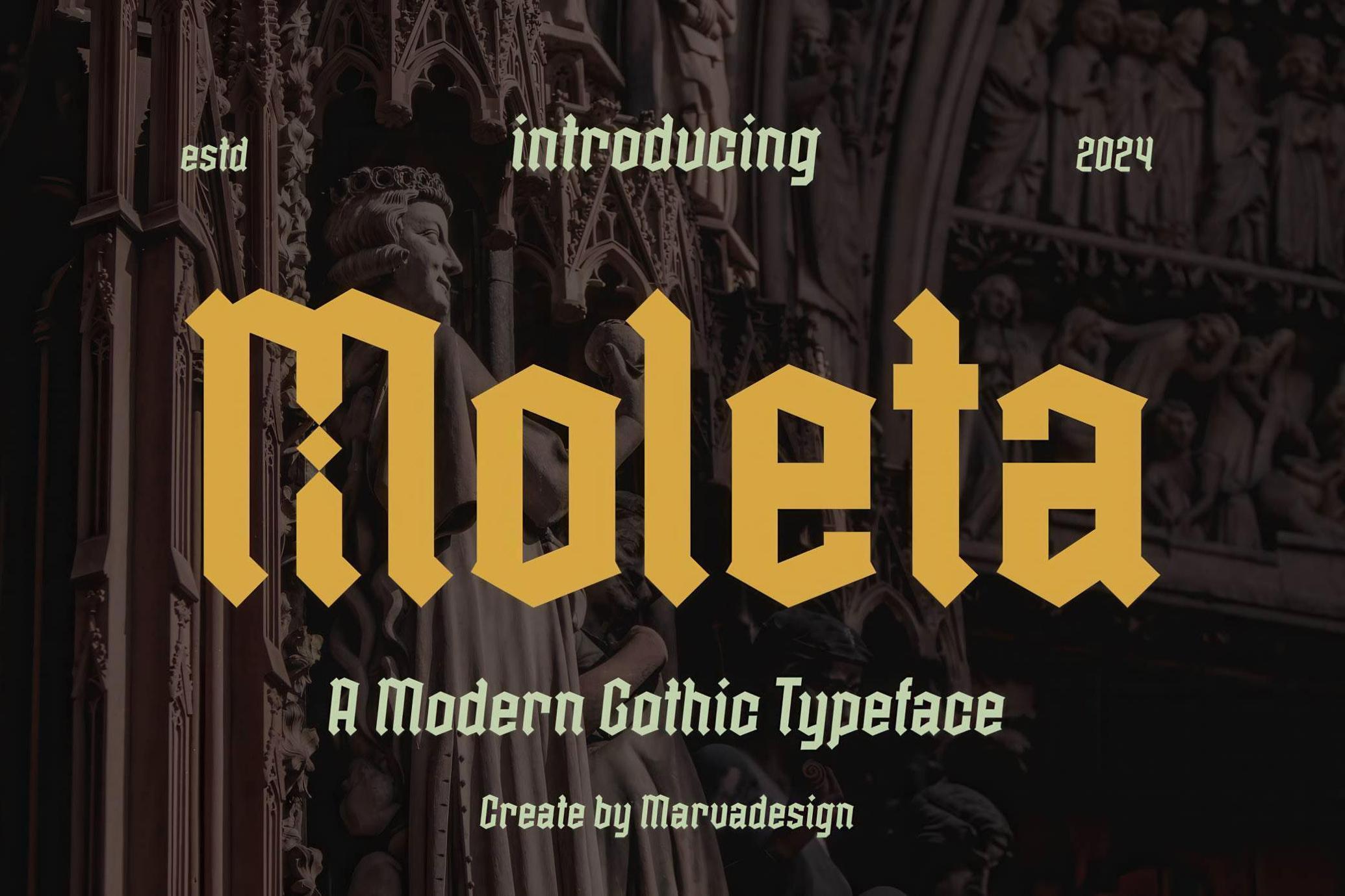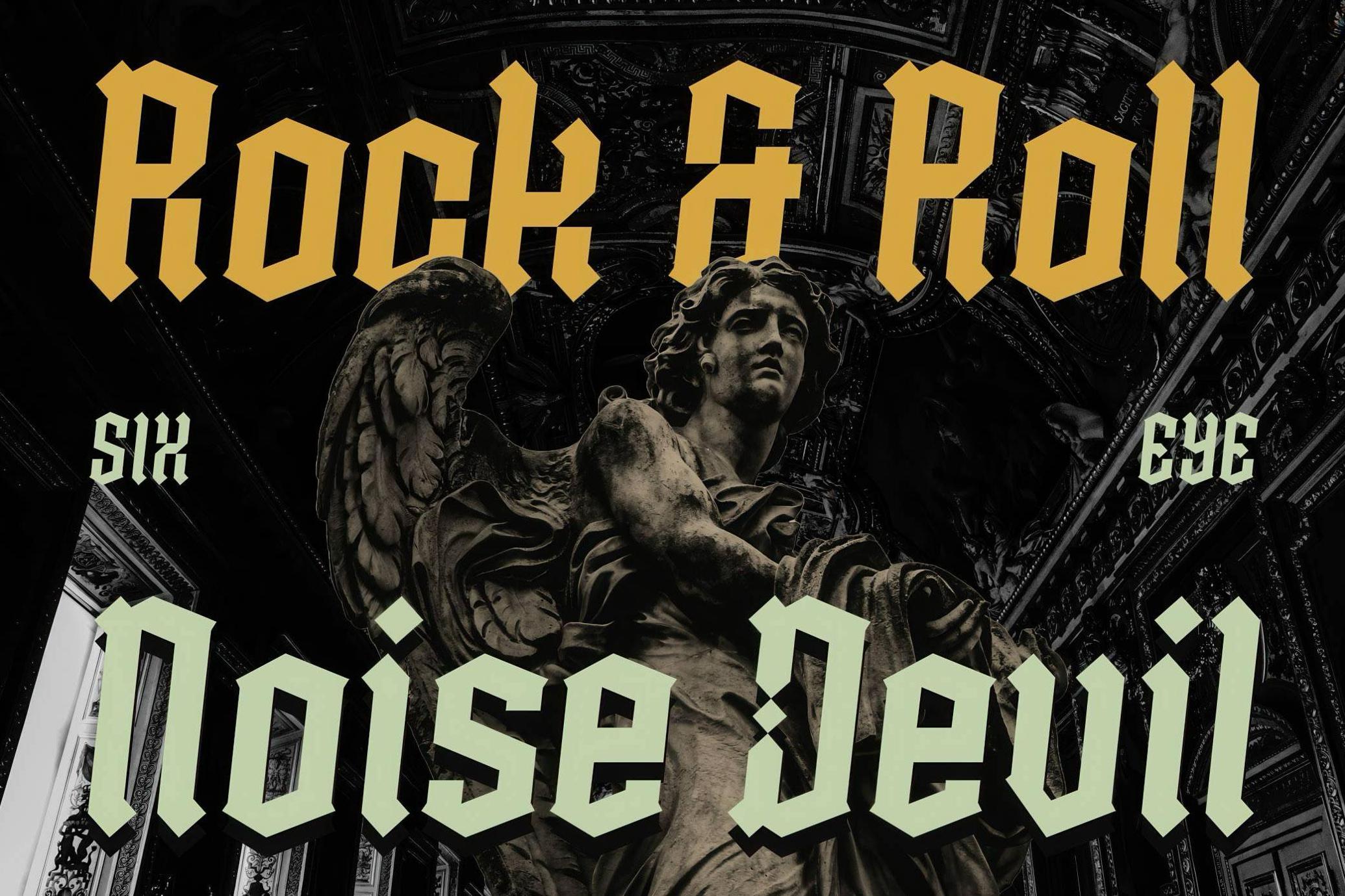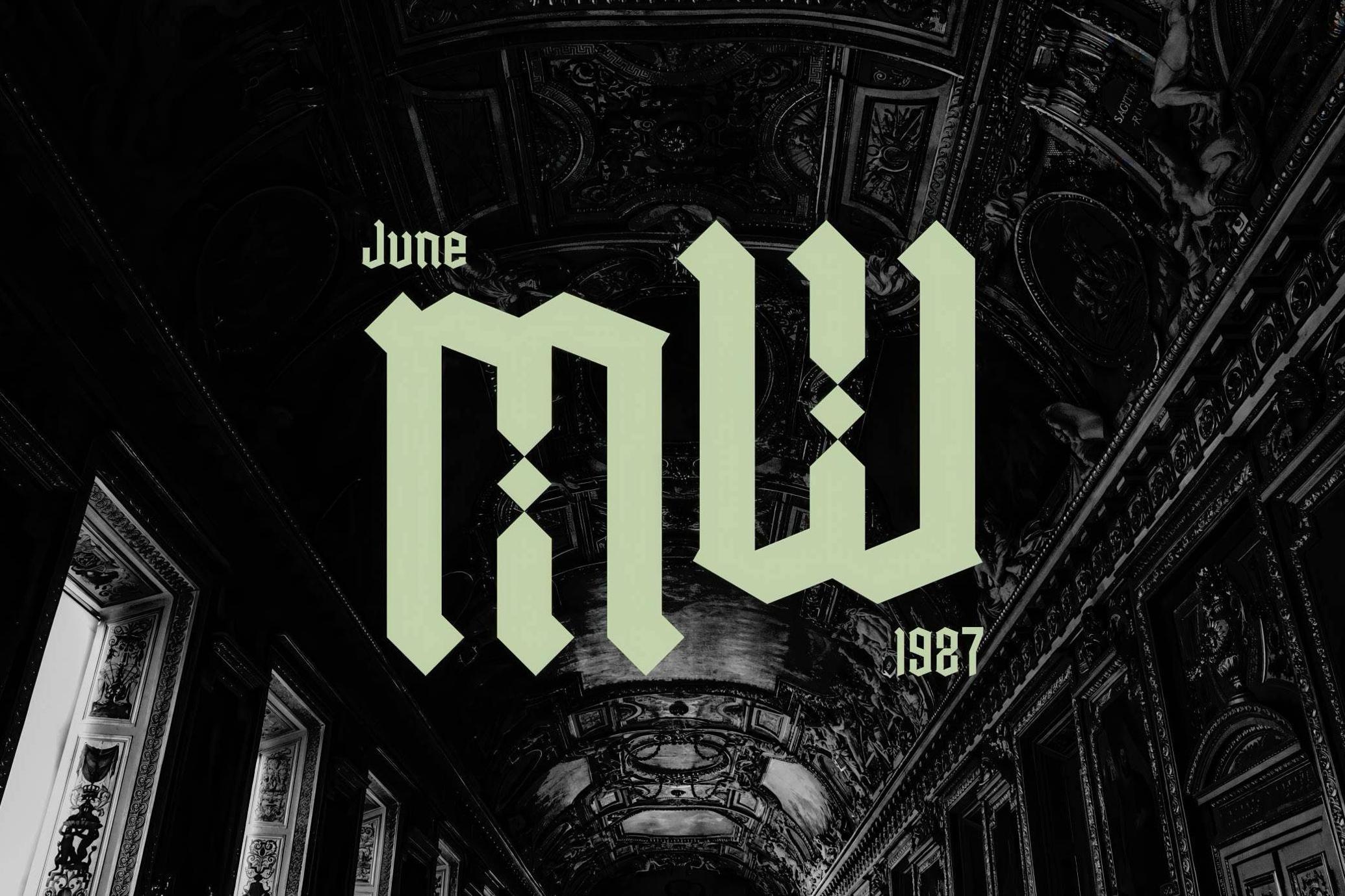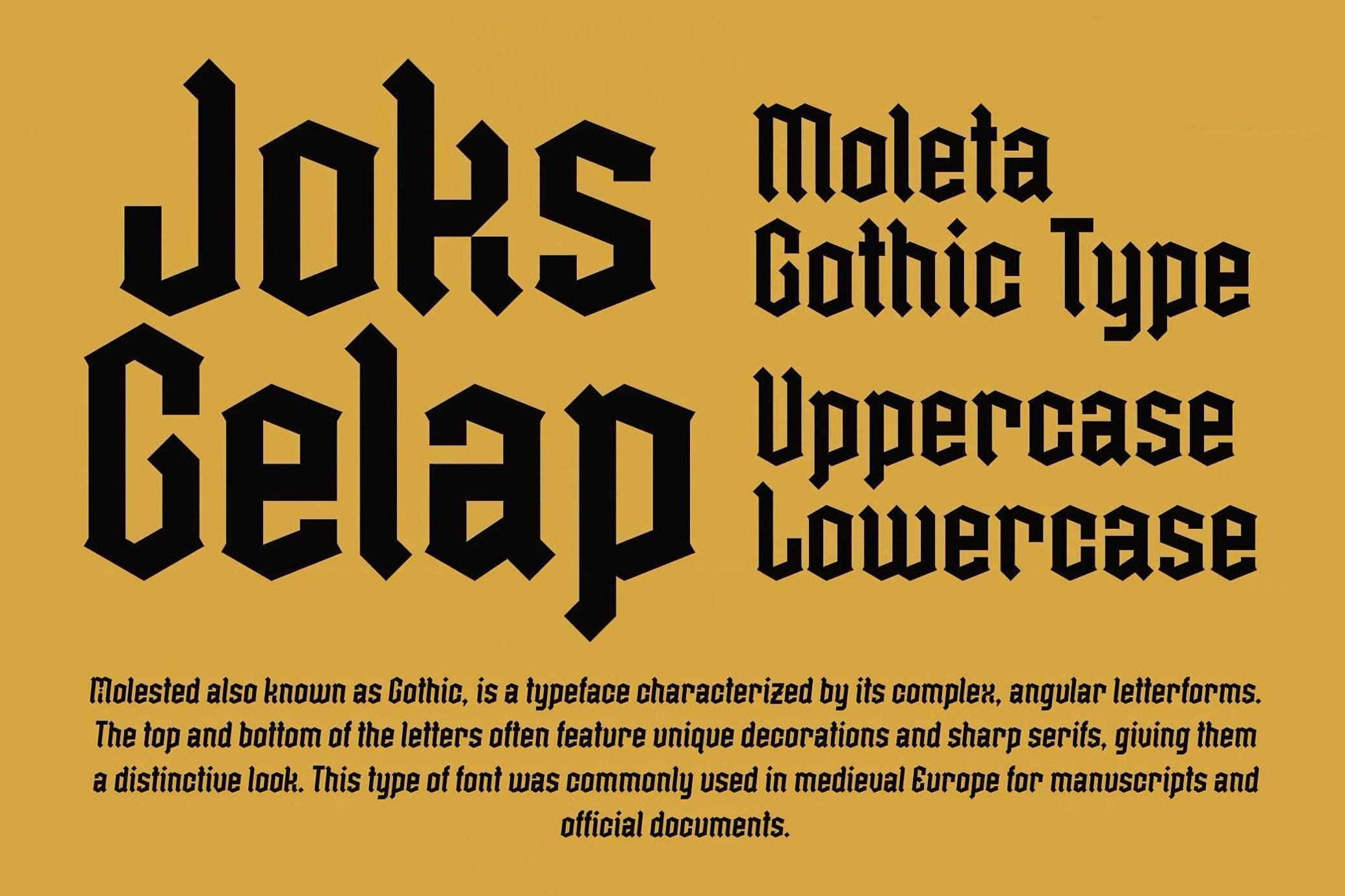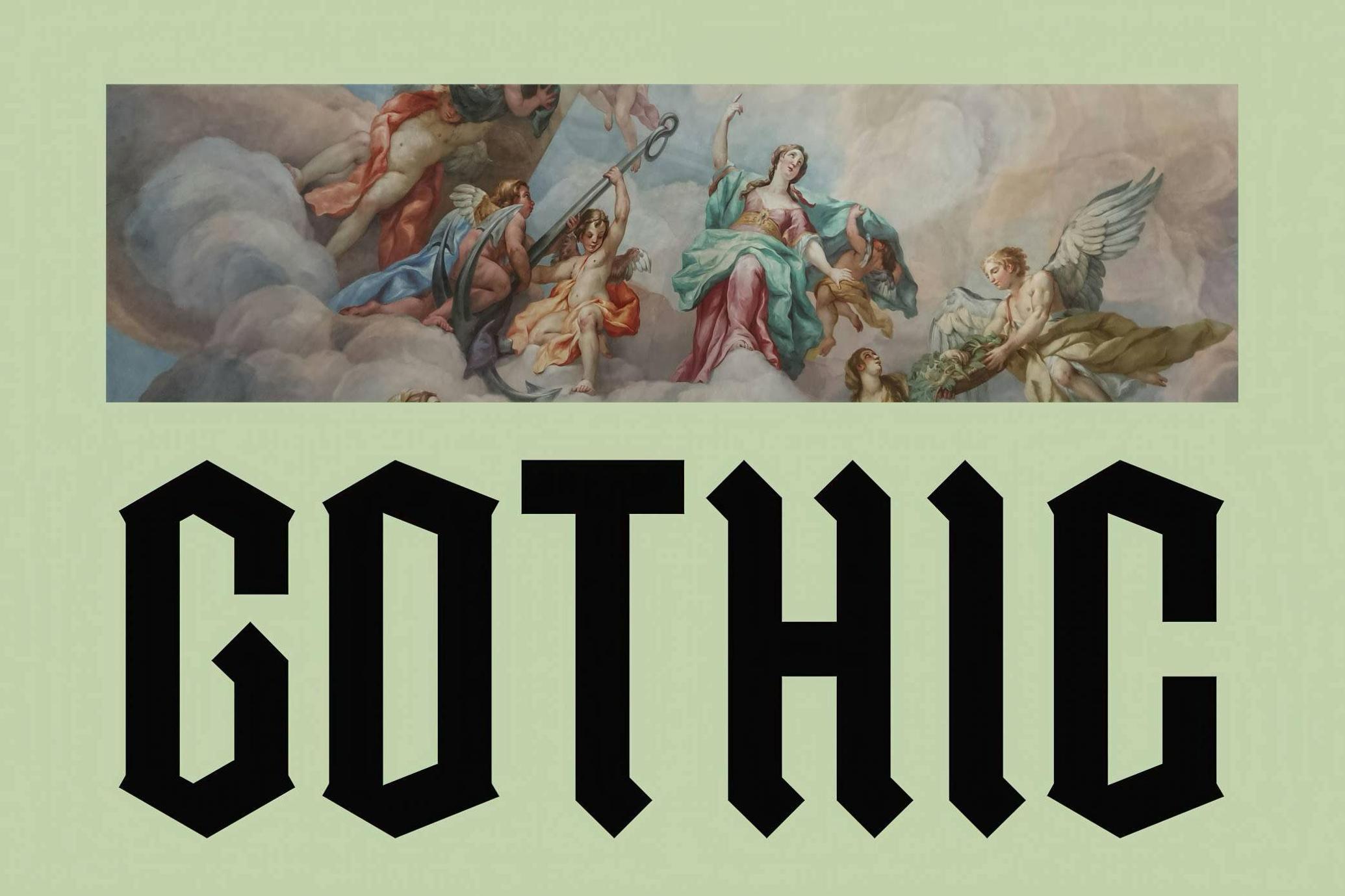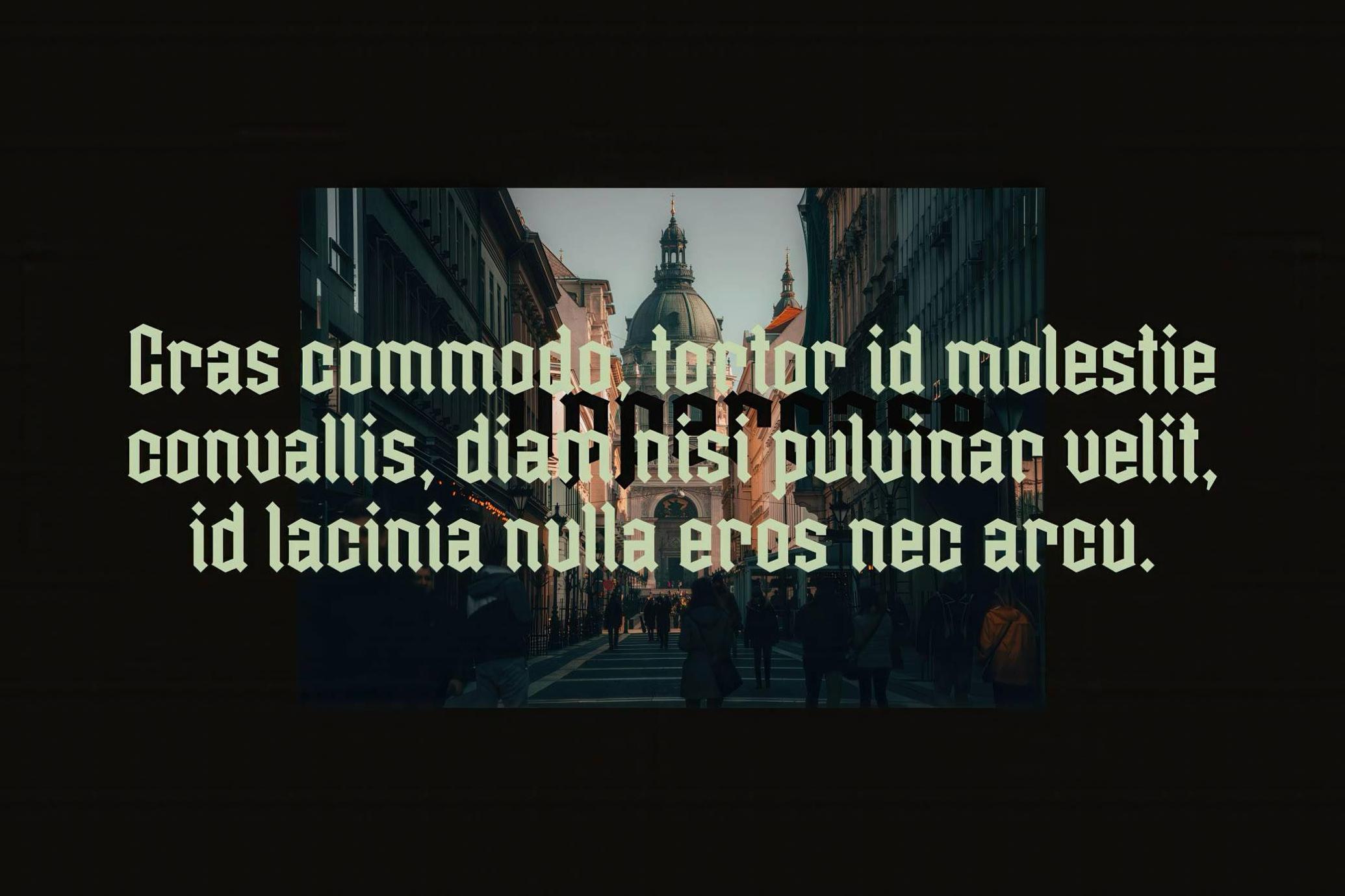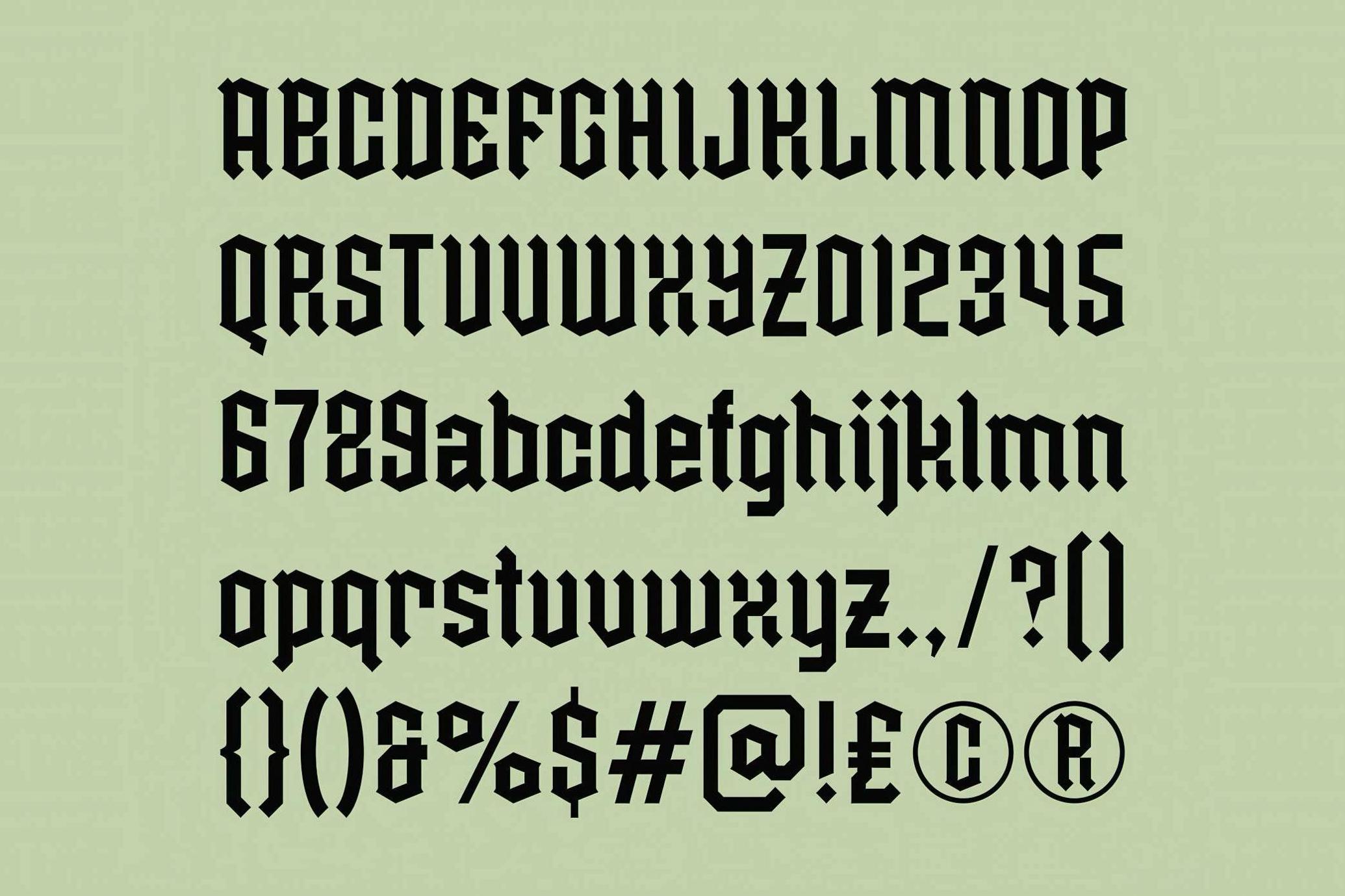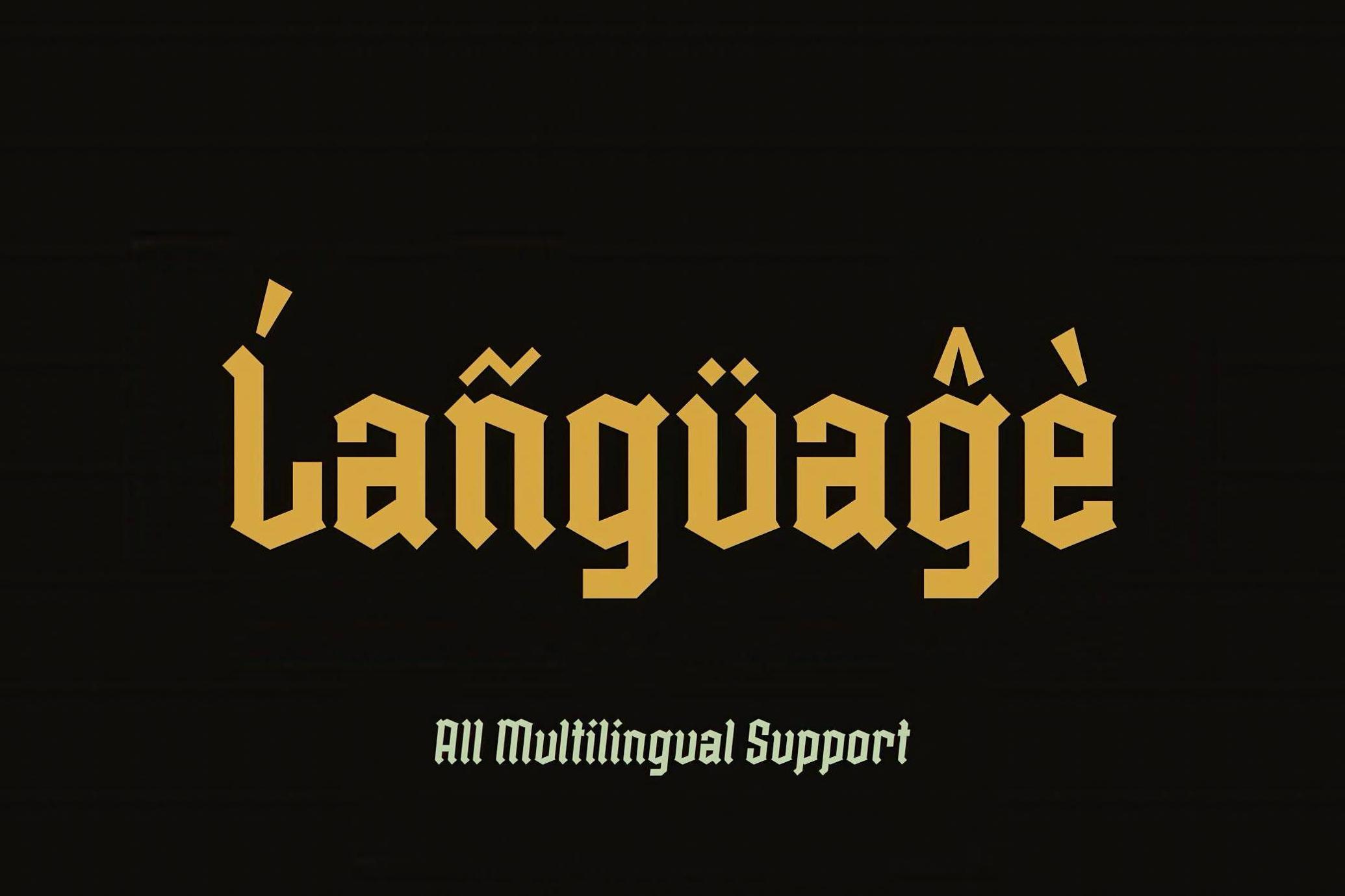
Moleta — Modern Gothic Typeface
Moleta
With all the drama of a cathedral shadow and the bite of a blackletter blade, Moleta revives the Gothic tradition with a bold, contemporary edge. Its angular strokes, ornate caps, and dagger-sharp terminals feel straight out of medieval manuscripts — but wielded with modern intent. This typeface straddles centuries, making it just as at home on a royal decree as on a doom-metal poster or a luxury spirits label. Complete with uppercase, lowercase, alternates, and multilingual support, Moleta makes a visual statement cloaked in history, mystery, and a bit of sacred flair.